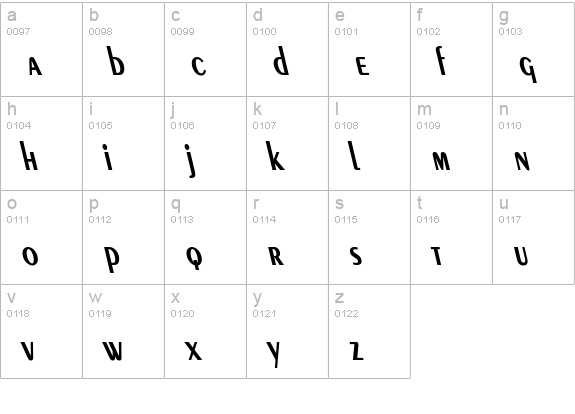
Pare Condensed Reverse BoldItalic is a distinctive, condensed-width variant in the Pare typeface family \xE2\x80\x94 well suited to design and typography projects.
Pare Condensed Reverse BoldItalic font is a stunning typeface that exudes boldness and elegance. Its unique design features a condensed structure with a captivating reverse slant, adding a touch of sophistication to any creative project. With its bold and italicized form, Pare Condensed Reverse BoldItalic font effortlessly commands attention and showcases a strong presence. Its sleek and stylish curves create a visually striking and modern aesthetic that is perfect for various design applications. This font is freely available to download at FontsMarket.com, making it accessible to all designers, artists, and enthusiasts. Whether you're working on a logo, branding materials, advertisements, or any other creative project, Pare Condensed Reverse BoldItalic font will elevate your designs and make them stand out from the crowd. Enhance your typography game with this versatile font that combines elegance and boldness effortlessly. Incorporate Pare Condensed Reverse BoldItalic font into your designs and experience the impact it has on the overall visual appeal. Unleash your creativity and make a statement with Pare Condensed Reverse BoldItalic font. Its unique design and freely available download make it an indispensable addition to any designer's toolkit.